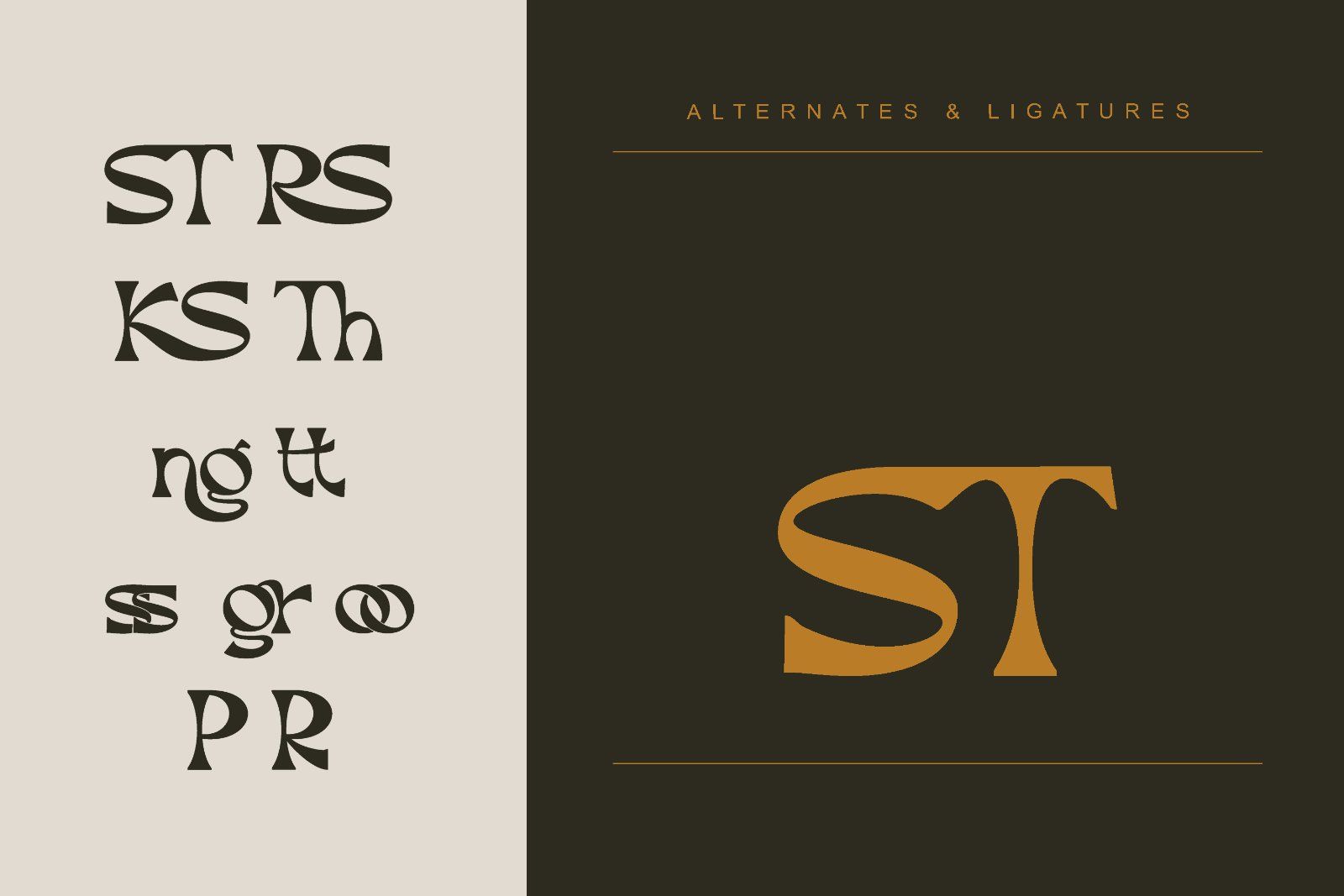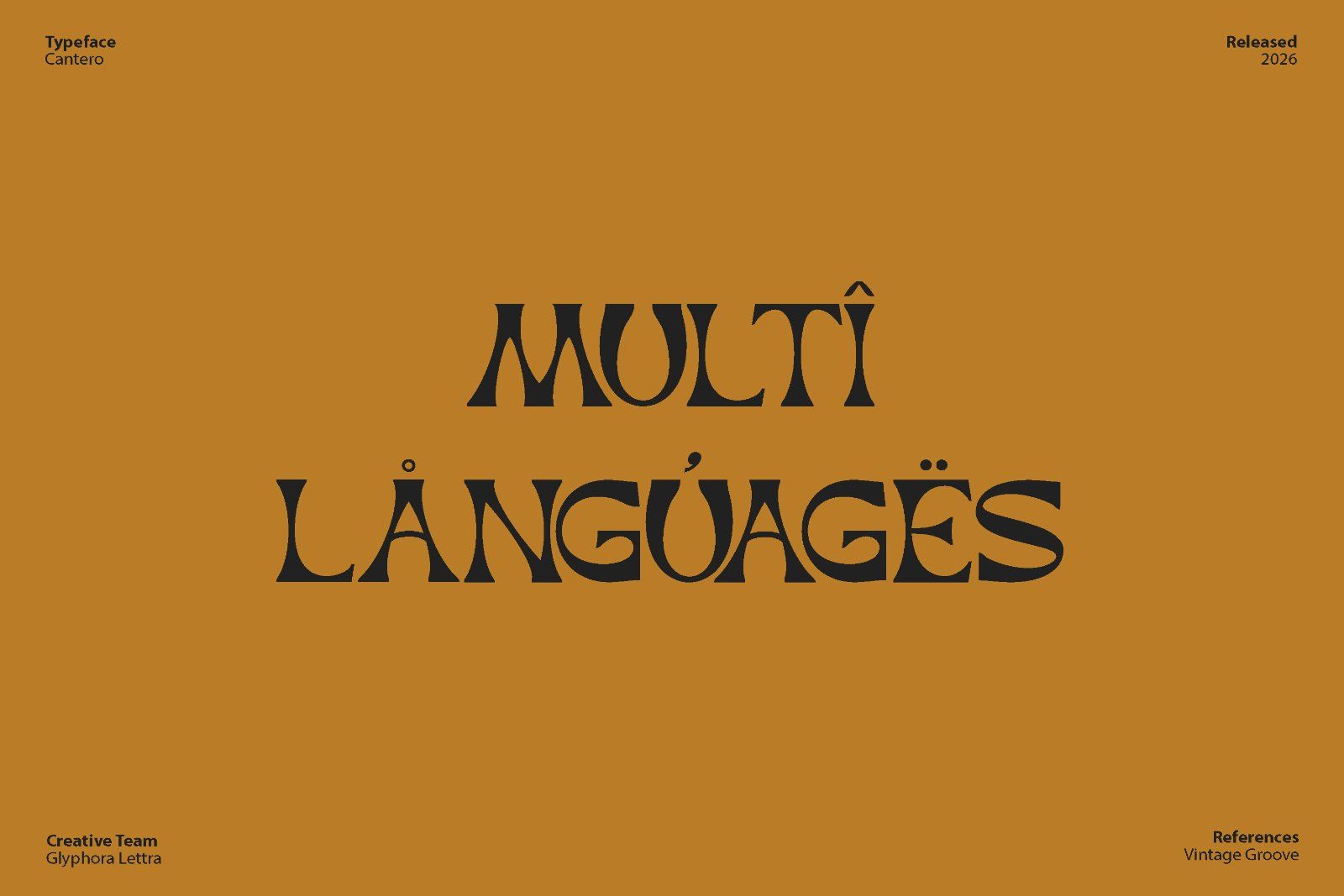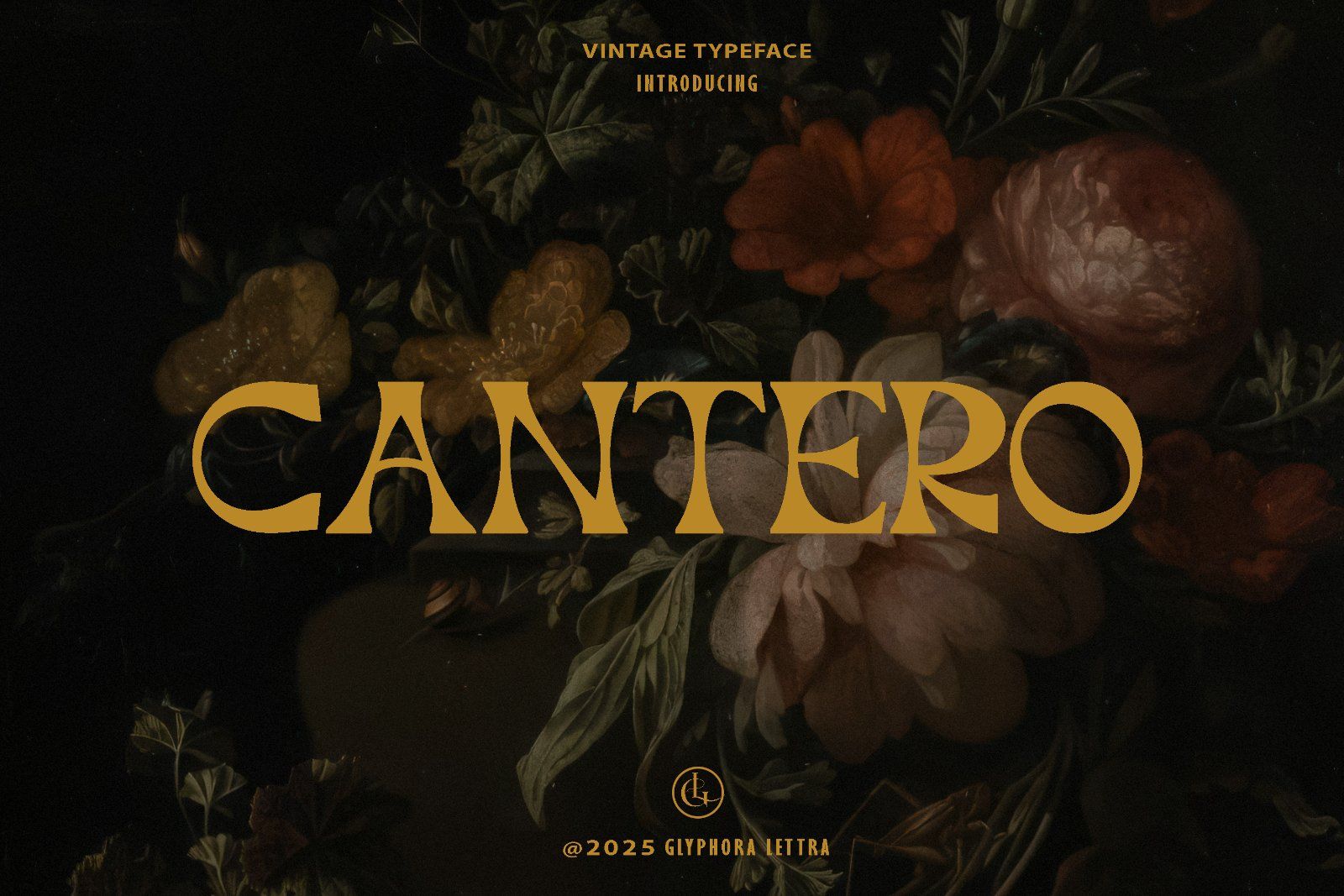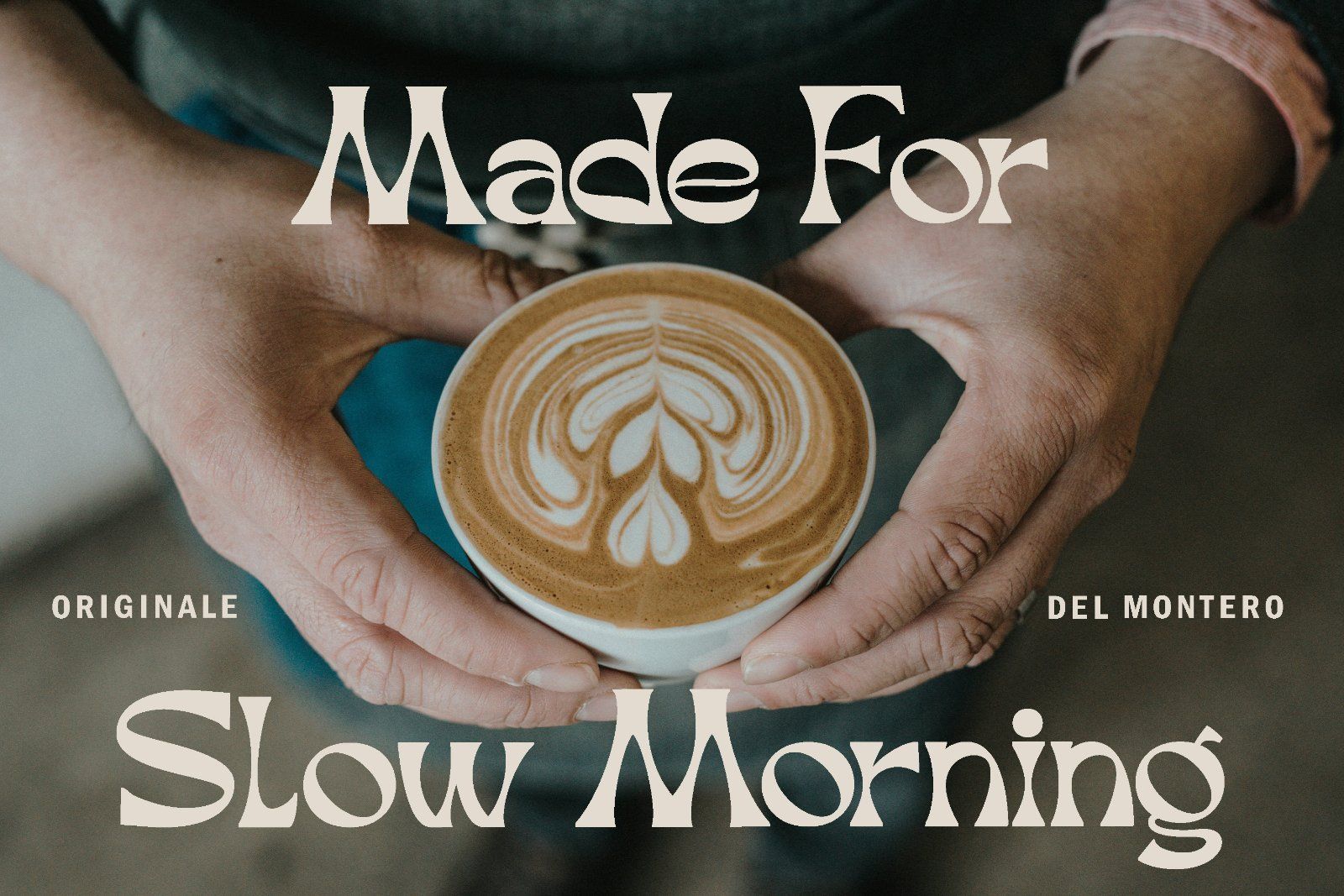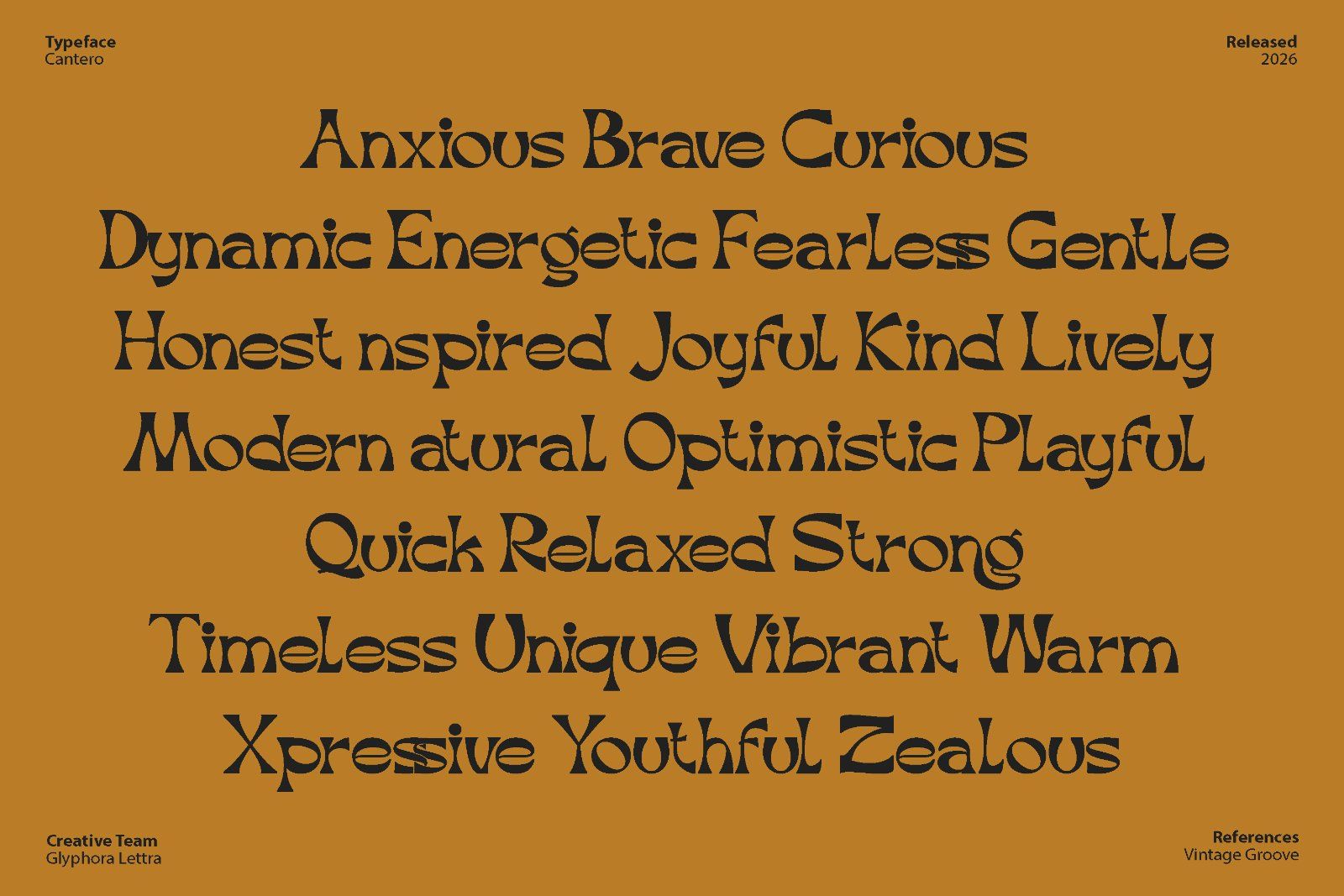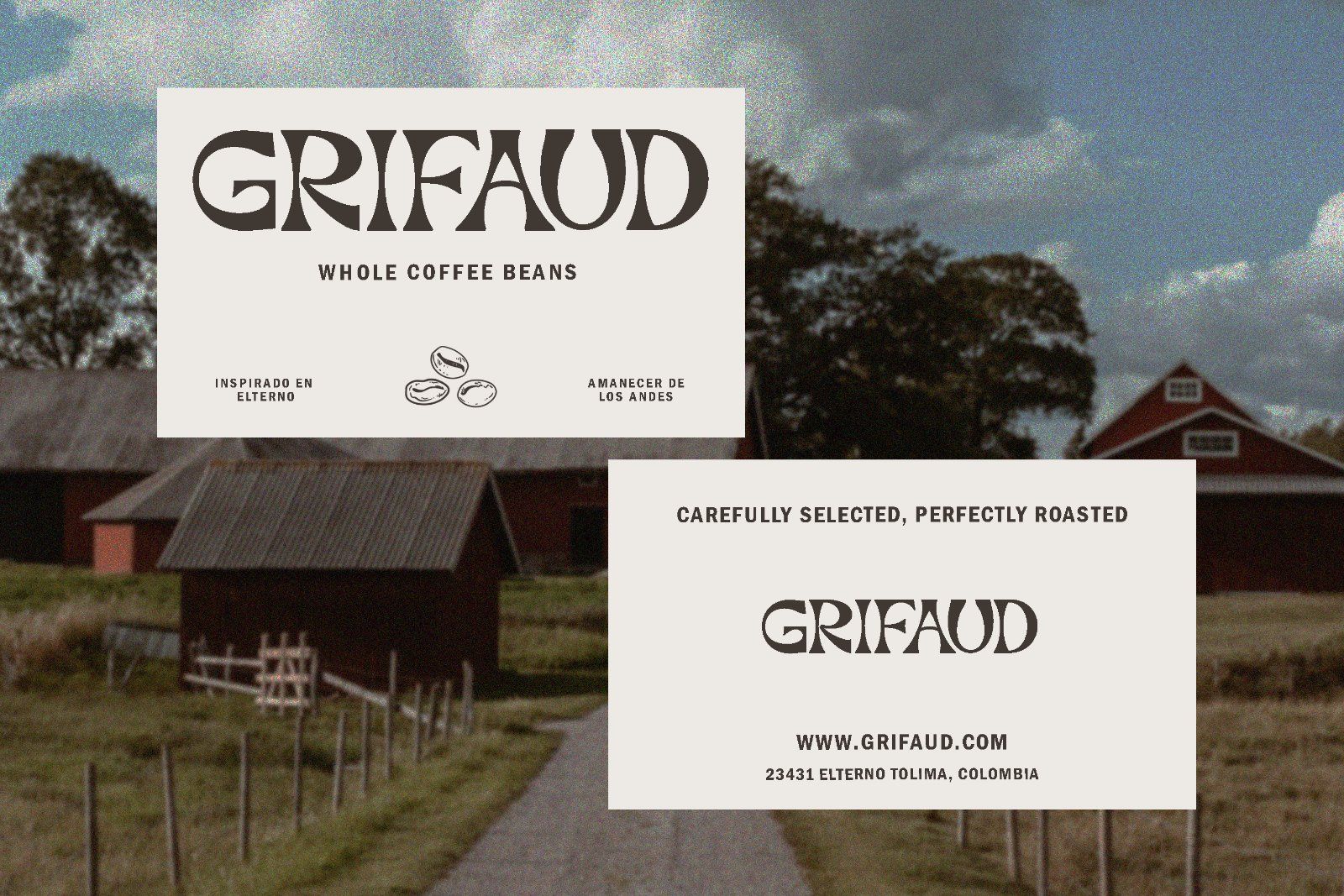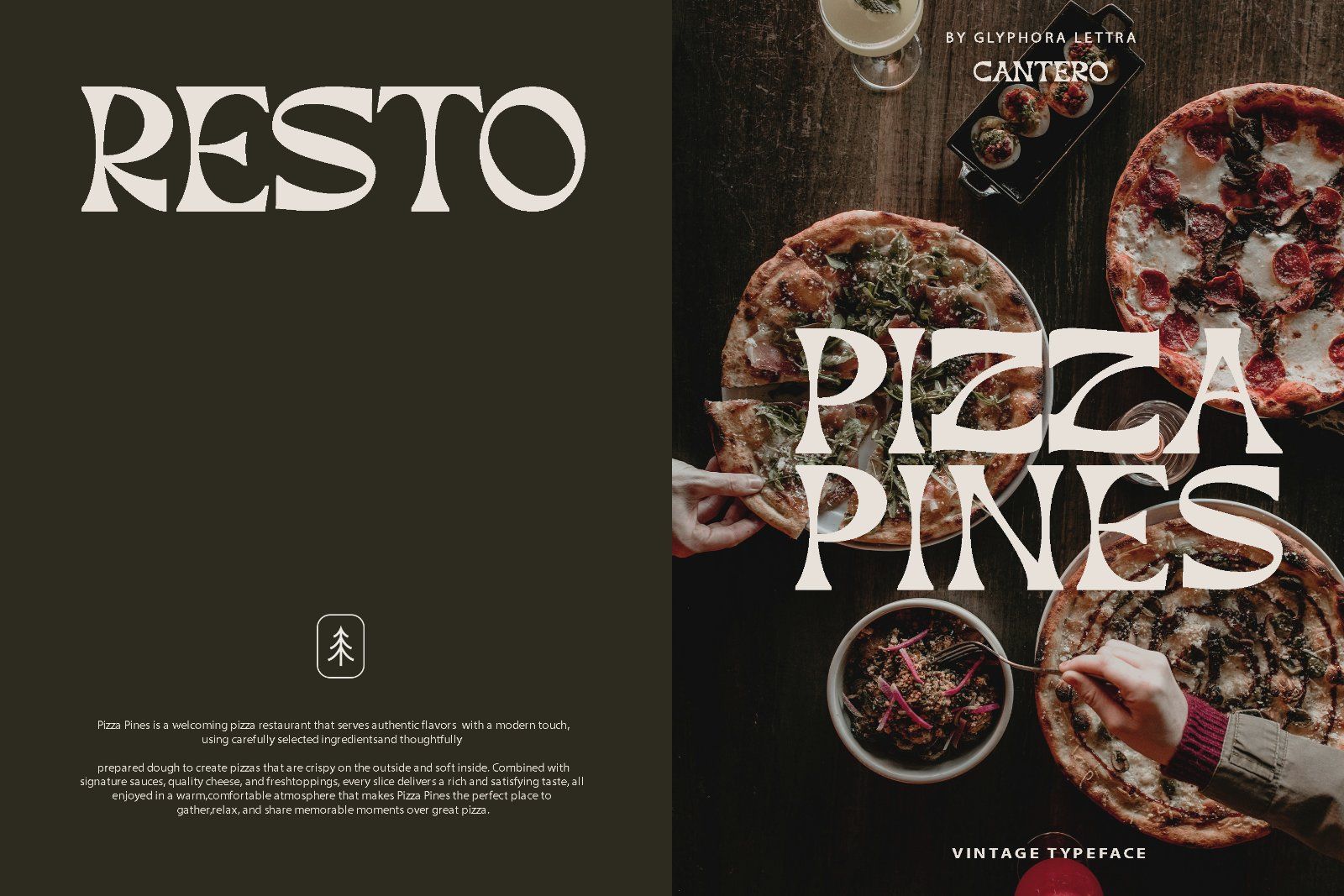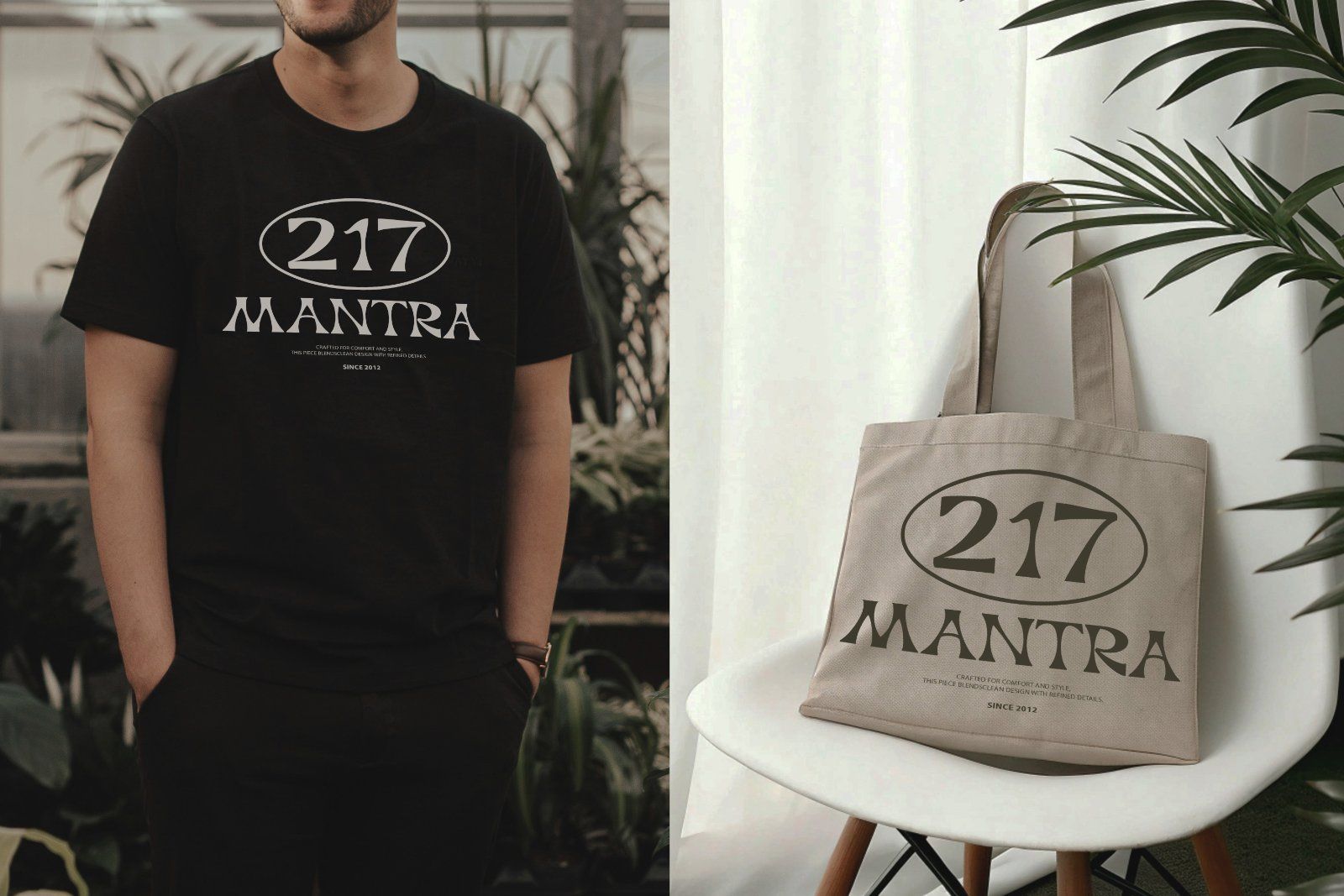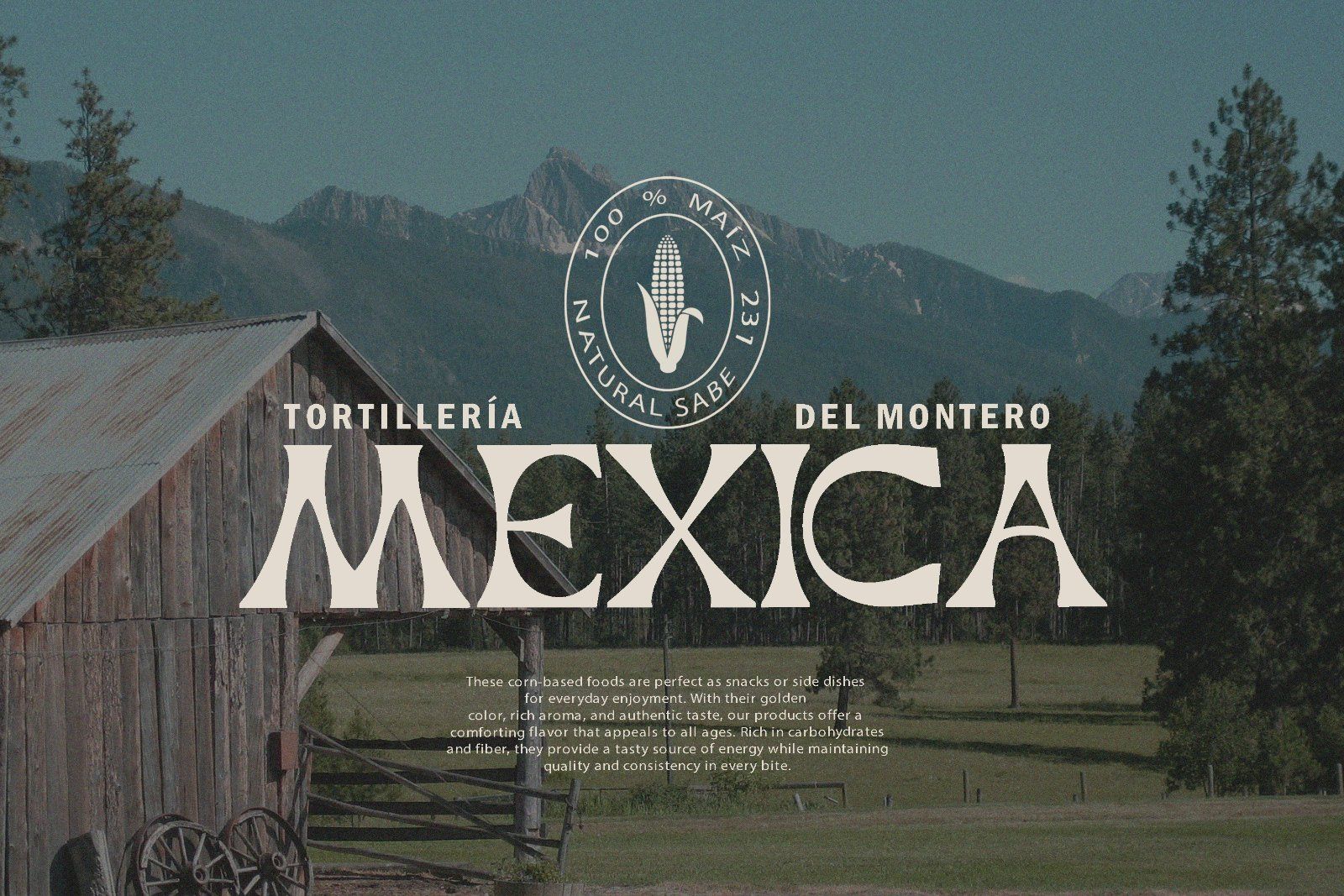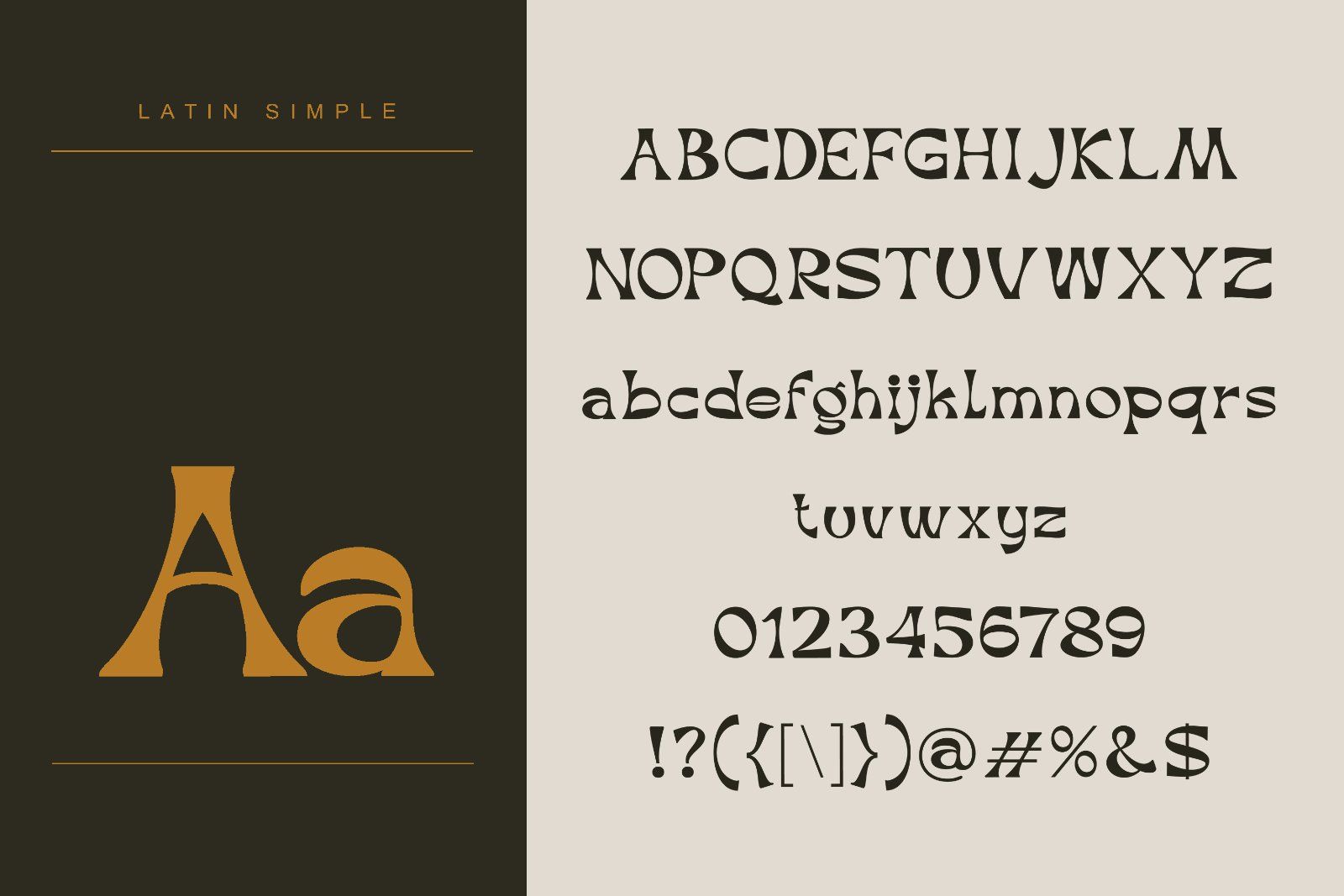
Cantero is a vintage-inspired serif typeface that captures timeless elegance, classic craftsmanship, and refined character. Inspired by classic typography and historical print aesthetics, Cantero delivers a warm, sophisticated presence that feels rich, authentic, and expressive.
• Uppercase & lowercase letters
• Stylish alternates
• Branding & Visual Identity
• Editorial & Book Covers
• Vintage & Classic Logos
• Packaging Design
• Posters, Headlines & Display Typography
• Fashion, Lifestyle & Creative Projects